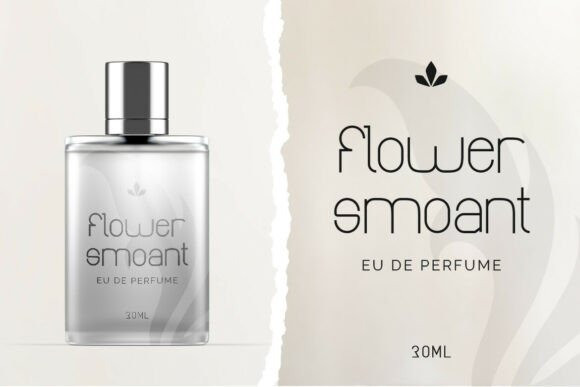
Qaisilon Font
Qaisilon Font is a luxurious sans-serif typeface with a clean, modern aesthetic and stylistic ligatures that add a unique touch. Its consistent stroke weight and geometric structure make it highly versatile for various design applications.
This font includes a full character set featuring uppercase and lowercase letters, numerals, and a wide range of symbols and punctuation. It also supports over 100 languages with its extensive multilingual glyph set.